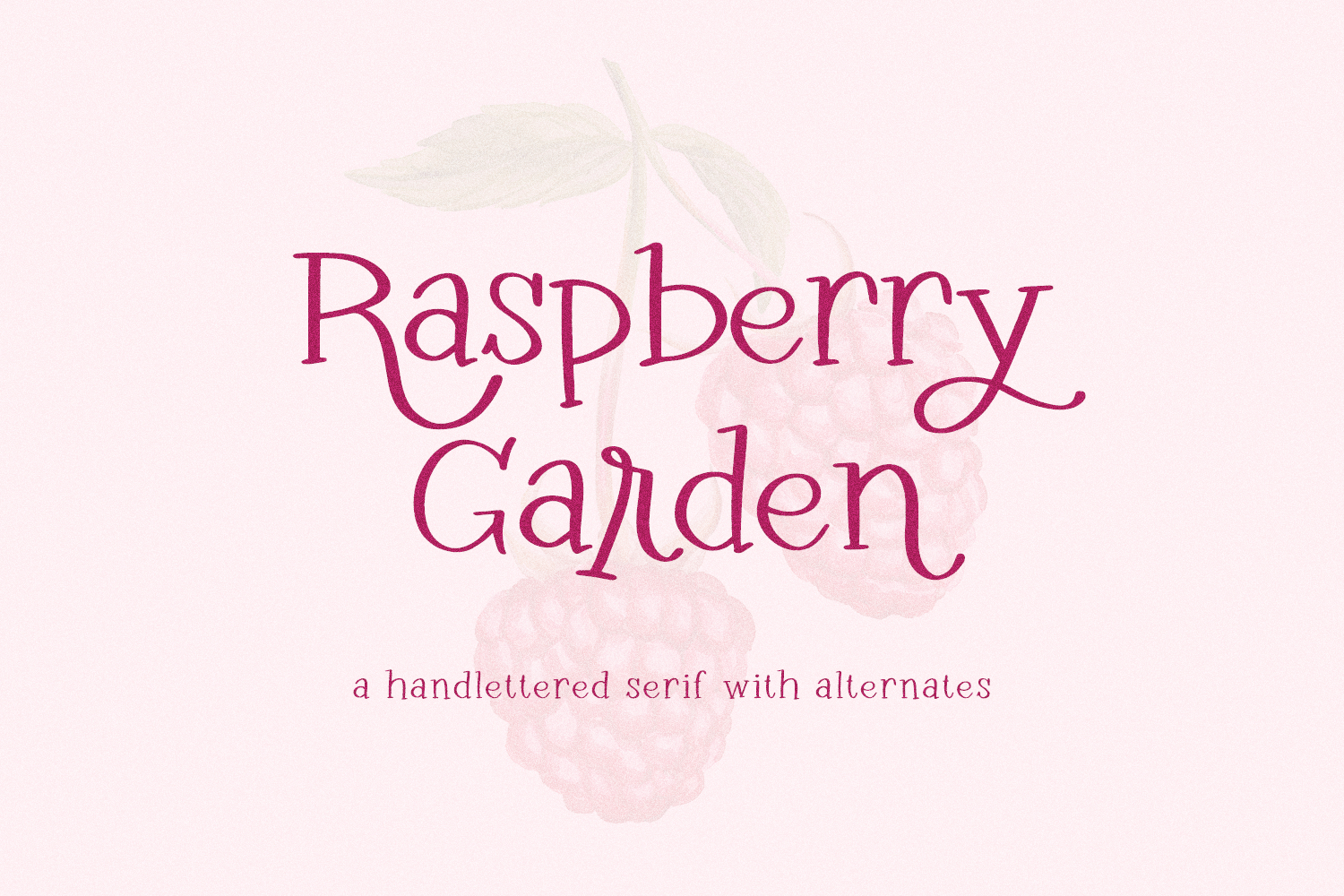
Raspberry Garden Serif is a hand lettered serif font with fun alternates. Raspberry Garden is perfect for logos & branding, greeting cards, painted banners, digital planners, note-taking apps, Canva, Cricut projects, Silhouette projects, designing SVG files, laser cutting projects, & more.
Raspberry Garden Serif includes:
- 39 alternates